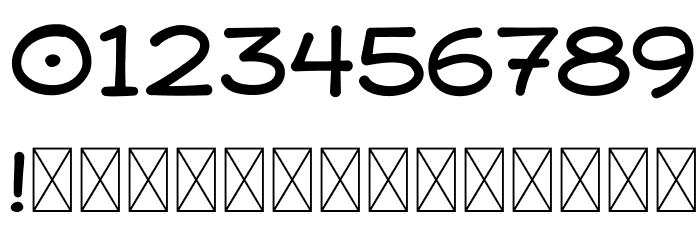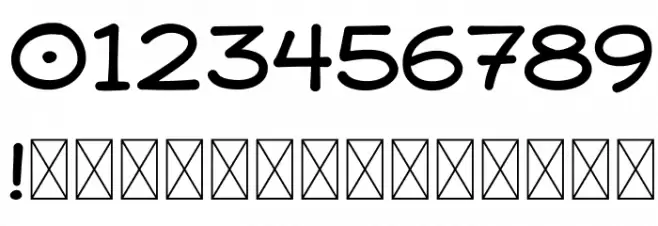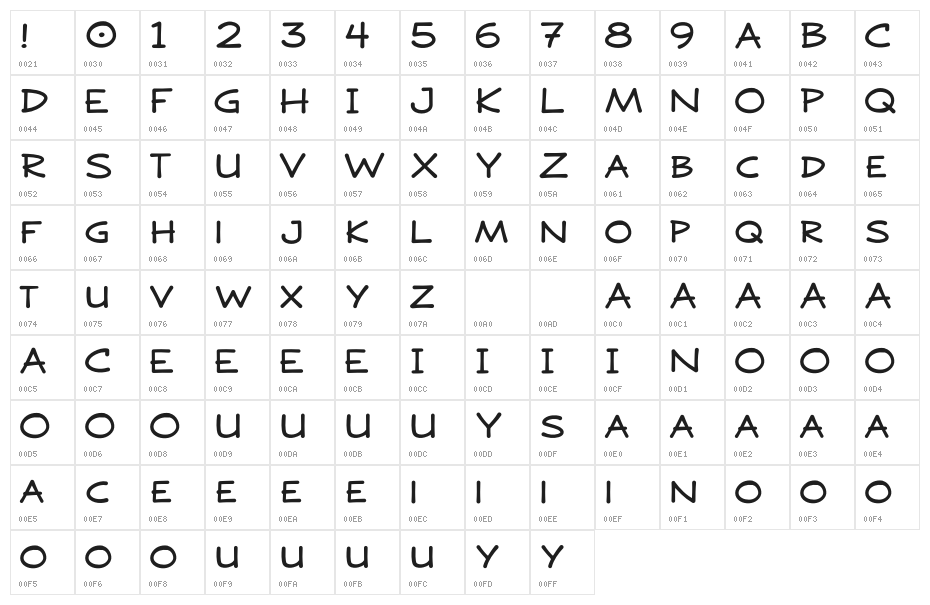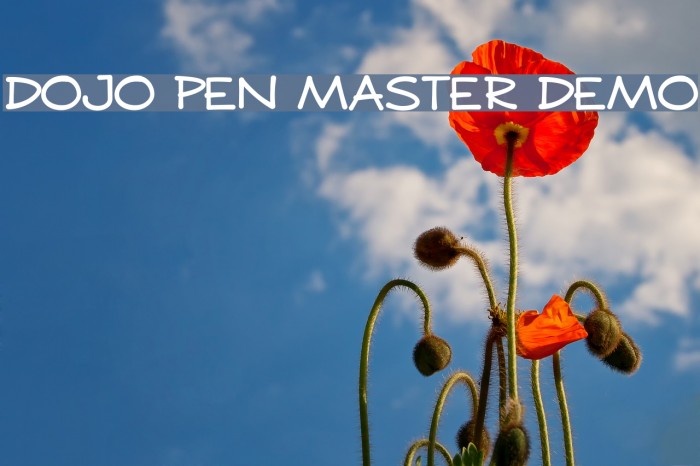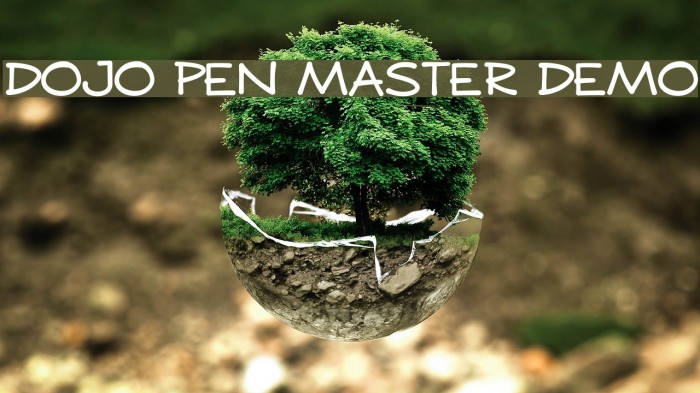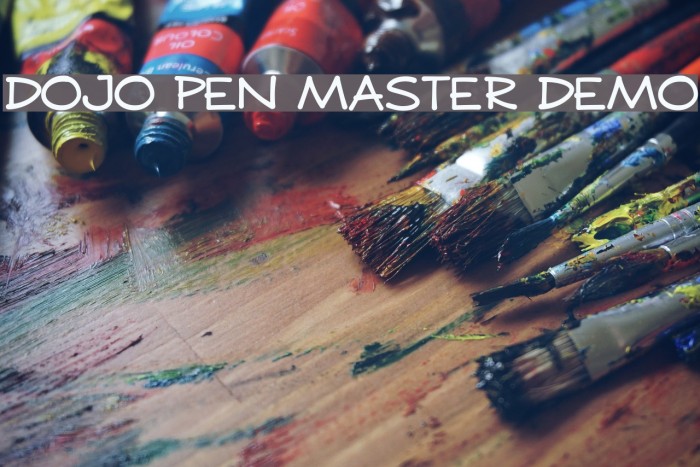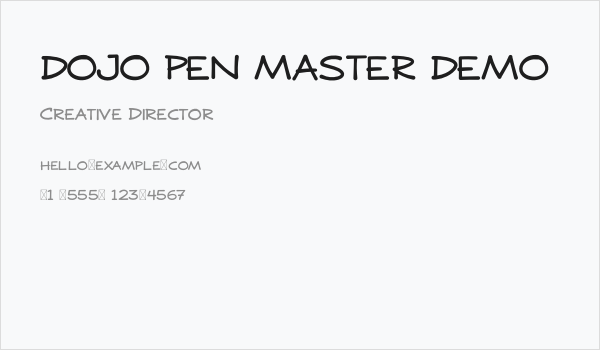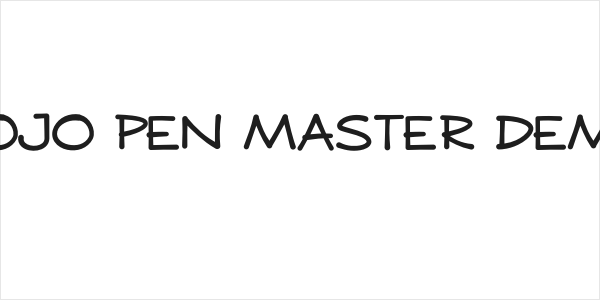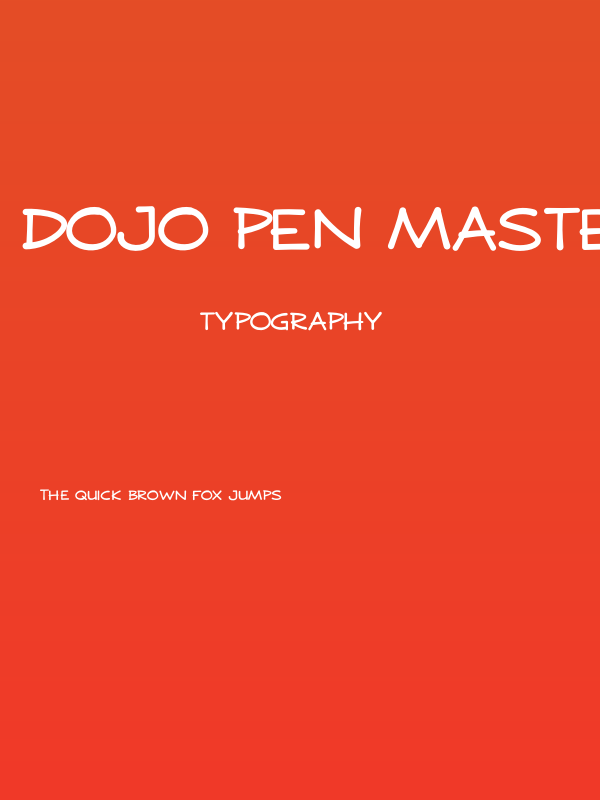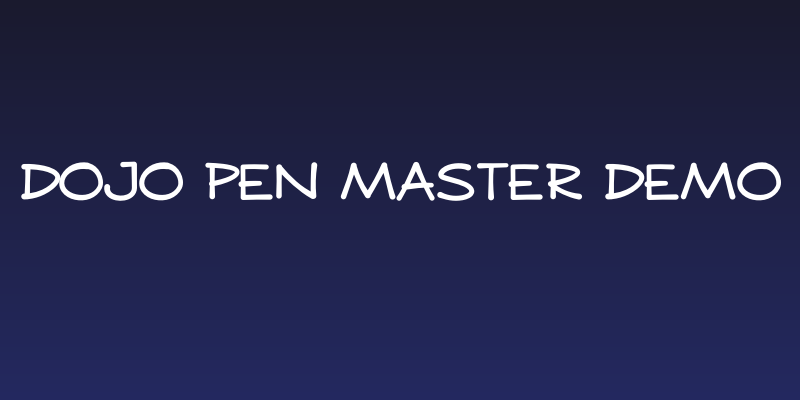
DOJO PEN MASTER DEMO Font
DOJO PEN MASTER DEMO Description
This font features a playful and casual handwritten style, characterized by its rounded and slightly irregular letterforms. The strokes are smooth and consistent, giving it a friendly and approachable appearance. The uppercase and lowercase letters maintain a uniform height, while the numbers and special characters are designed to complement the overall aesthetic. The font's informal nature makes it suitable for projects that require a personal touch, such as greeting cards, invitations, or children's books. Its legibility and charm make it a versatile choice for a variety of creative applications.